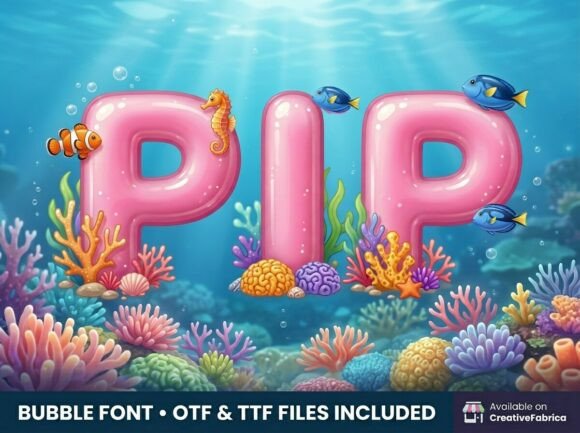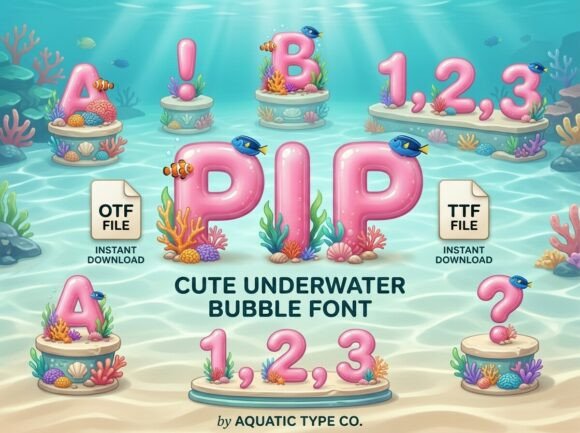
Introduction to Pip Font
Have you ever stumbled upon a design resource that instantly sparks creativity and transports you to a world of endless possibilities? That’s exactly what happens when you come across Pip Font, a charming coral bubble alphabet font that’s about to become your new go-to for all things underwater-themed.
Whether you’re planning a children’s party, designing educational materials, or simply want to add a splash of fun to your social media headers, Pip Font is the perfect design companion. Its vibrant coral reefs, delicate seashells, and playful tropical fish make it an irresistible choice for creatives looking to elevate their high-quality designs with a touch of whimsy.
With its unique 3D texture and transparent background, Pip Font is a versatile design tool that’s sure to bring a smile to your face. And the best part? It’s available for free download, making it an invaluable resource for designers of all levels.
Honest Review: Pip Font
I recently had the chance to try out the Pip Font, and I must say it’s been a great addition to my design resources. The Pip Font is a unique and quirky font that’s perfect for adding a touch of personality to your creative project.
One thing that works well with the Pip Font is its high quality and versatility. The font is available for free download, making it a fantastic option for designers on a budget. The transparent background feature also allows for easy customization and integration into various design elements.
Here are some of the features that I like about the Pip Font:
- Unique and quirky design
- High quality and crisp typography
However, I do have to mention a few limitations:
- Some letters may be difficult to read in certain contexts
- Limited character set (not ideal for extended texts)
Overall, I’m impressed with the Pip Font and would definitely recommend it to designers looking for a unique and high-quality font for their creative project.
The Pip Font is a great addition to any designer’s toolkit, and I’m looking forward to using it in future projects.
Pip Font is commonly used in creative projects such as: graphic design, logo creation, presentation design, and document creation. Its high-quality design makes it perfect for any project where you want to add a touch of elegance and sophistication.
Whether you’re a professional designer or a hobbyist, Pip Font is an excellent choice for anyone looking to elevate their creative work. Its benefits are numerous, from its ease of use to its ability to add a touch of sophistication to any design. So why not give it a try? Download Pip Font today and unlock its full potential to take your creative project to the next level.